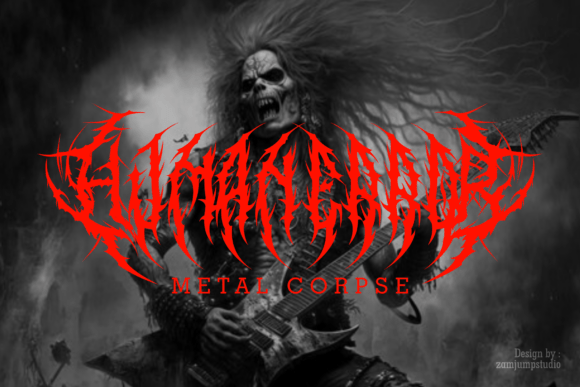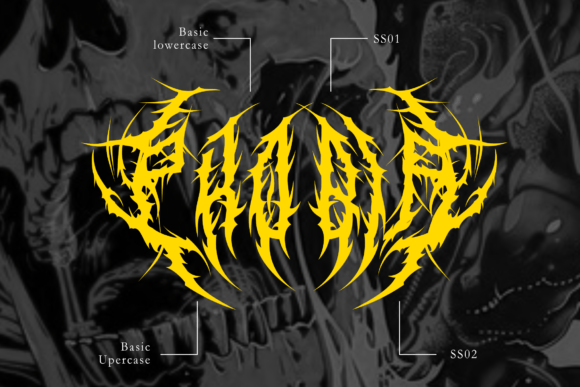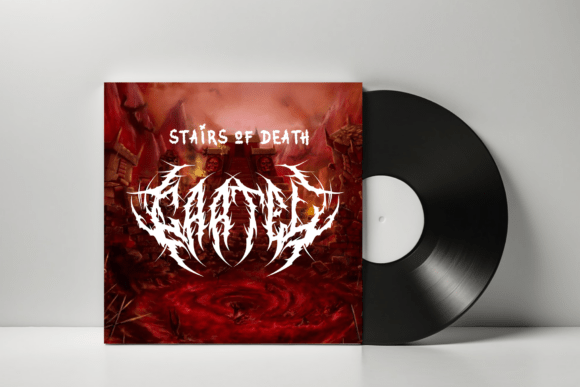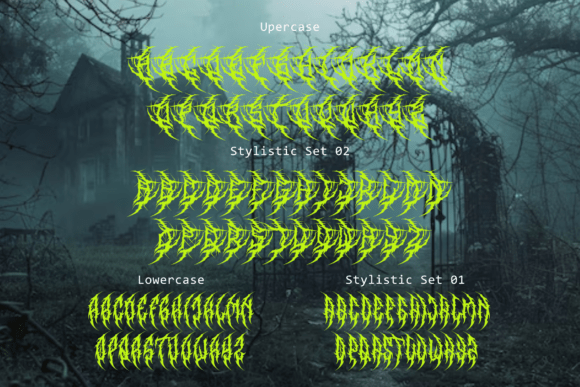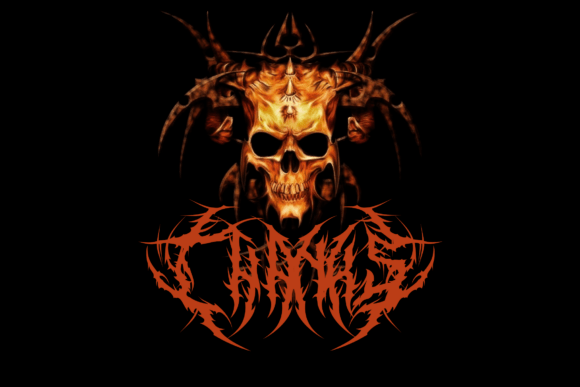
Introduction to Gruthack Font
Gruthack is a brutal and aggressive death metal typeface designed to capture the raw energy of extreme music.
Featuring unique initial, middle, and terminal characters, it allows for dynamic and chaotic letter combinations, making it perfect for creating intense and striking typography This typeface is ideal for various print and digital media applications, including album covers, band logos, merchandise, posters, and social media graphics.
Key Features of Gruthack Font